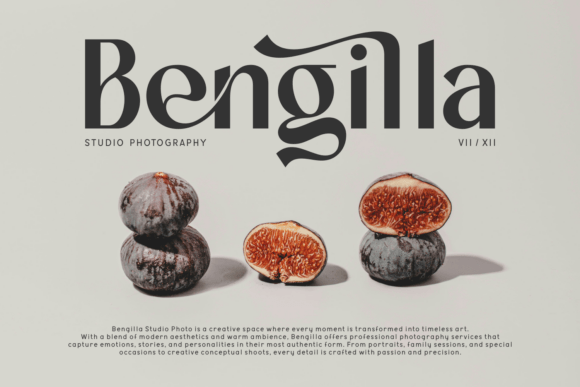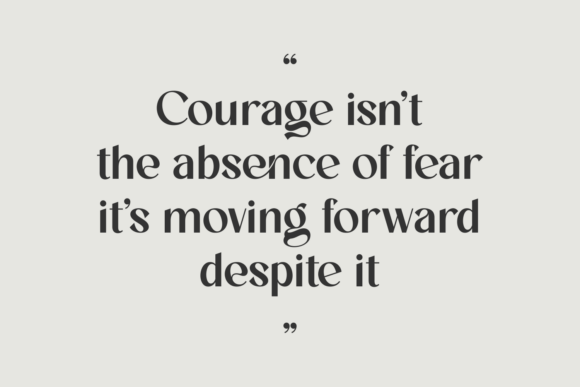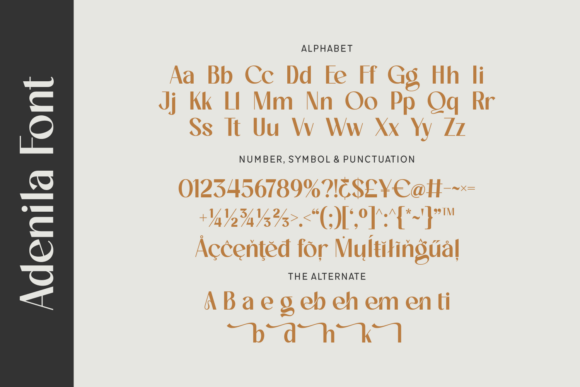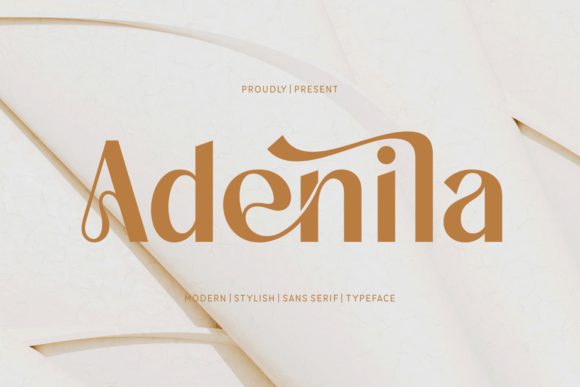
Introduction to Adenila Font
A promotional image for β€œAdenila,” a modern and stylish sans serif typeface.
The font is soft, flowing architectural shapes The typeface is distinguished by its unique and fluid ligatures and swashes, making it ideal for high-end branding, logos, and fashion-forward designs.
Key Features of Adenila Font